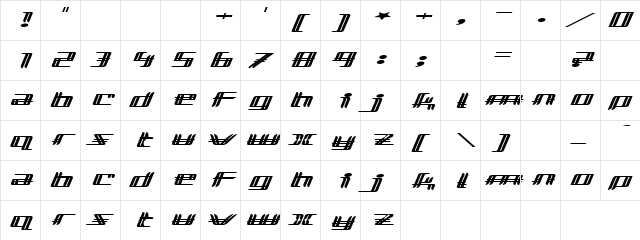
Speedy Slow Regular
Design Context for Speedy Slow Typeface
Speedy Slow is a composed and adaptable typeface that performs quietly and consistently across a wide range of design contexts.